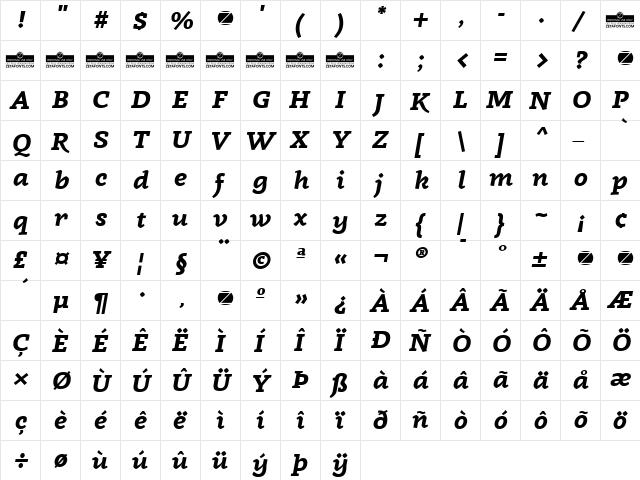
Radcliffe Display Bold Italic Font Preview
| Foundry | Studio Kmzero |
| Designer | Cosimo Lorenzo Pancini |
Design Context for Radcliffe Display Typeface
Radcliffe Display is built around its visual character rather than neutral utility — its distinctive forms are designed to make an impression at display sizes. The slanted form adds forward momentum and visual energy. The heavy weight commands attention and anchors typographic hierarchies.